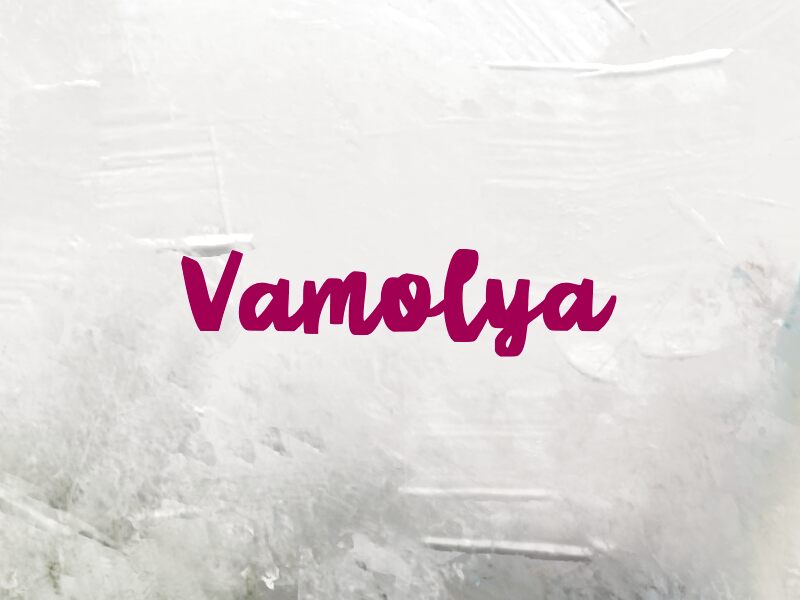
Vamolya
Vamolya font by wepfont.com is a free brush script typeface with the bold, inky confidence of a quick signature scrawled across a page. Its letters connect in an easy, swinging rhythm, with thick, painted strokes that feel warm and hand-done rather than polished and perfect. There’s a friendly swagger to the forms, making Vamolya feel like a personal note written with a fat marker rather than a stiff, formal script.
Using Vamolya, this free font shines on logos, social media graphics, product packaging, posters, merch, and bold quote layouts where you want a clear, human touch. The generous stroke weight keeps it readable even at smaller headline sizes, while the flowing script adds just enough drama for eye-catching titles. Pair Vamolya with a clean sans serif in smaller text to balance its energy and let the brush lettering carry the spotlight.